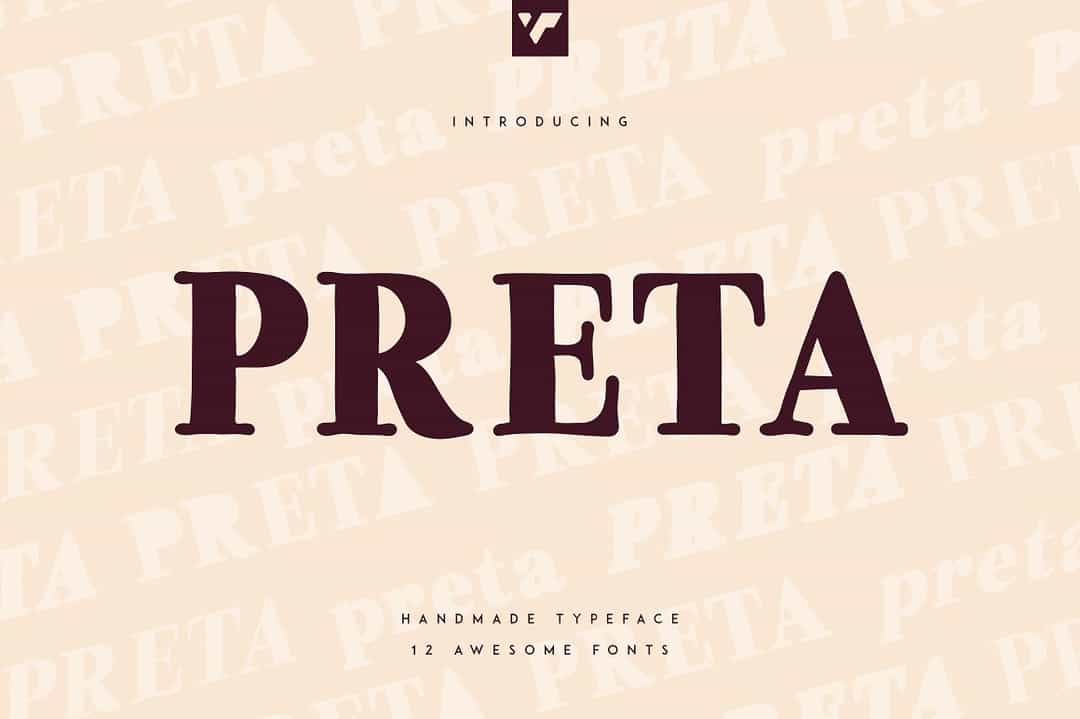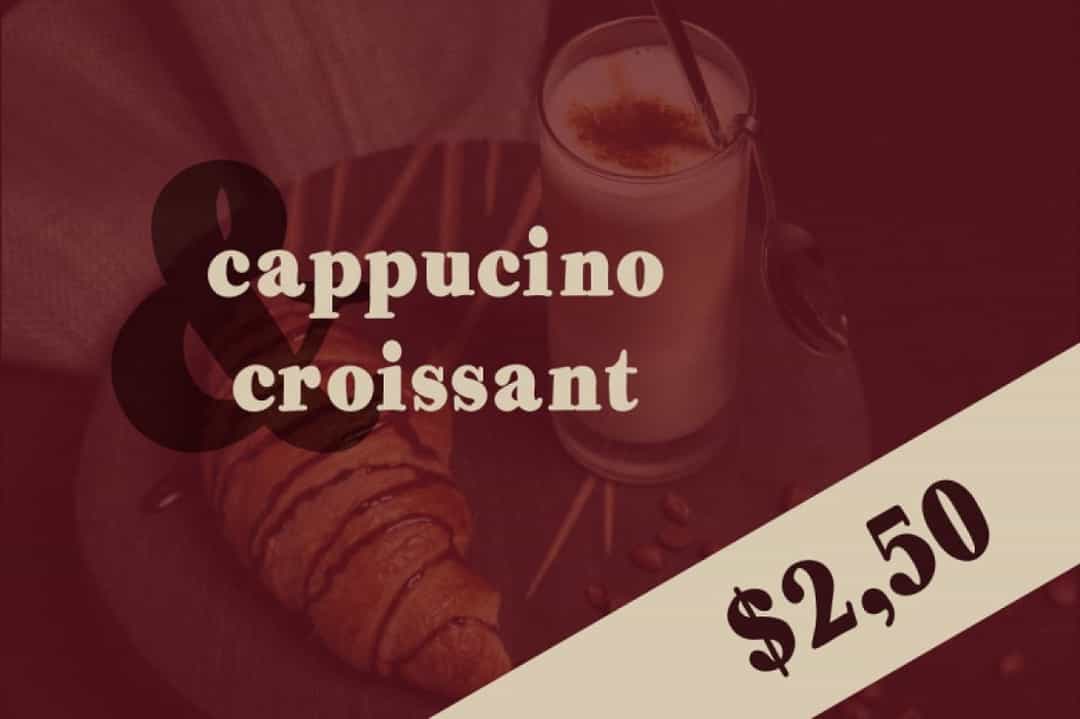
Preta Font is an elegant handwritten retro serif typeface featuring 12 fonts and multilingual support to make any project truly unforgettable. These versatile fonts perform exceptionally in small or large sizes and work wonderfully as branding tools. Preta Font can also serve as an eye-catching text overlay in images for extra panache!